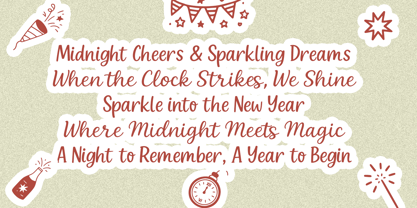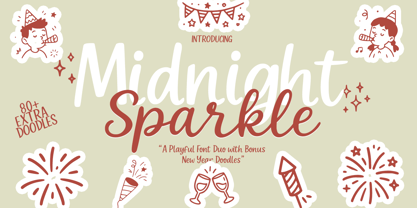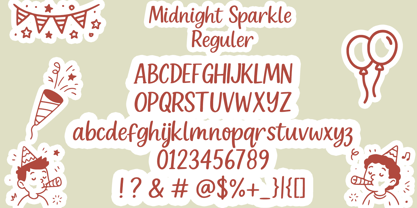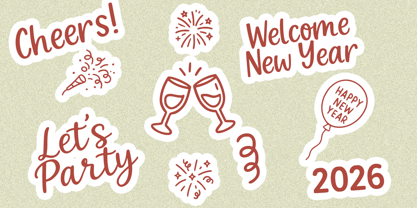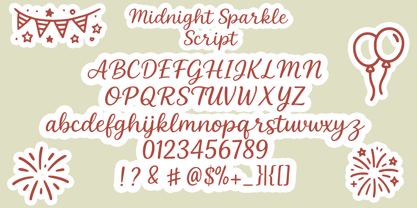
Midnight Sparkle
Die Schriftfamilie Midnight Sparkle wurde von Muhammad Zaini entworfen und von Cocodesign veröffentlicht. Midnight Sparkle enthält 3 Stile und Familienpaketoptionen. Mehr über diese Familie
Midnight Sparkle – Festive Font Duo + Extra New Year Doodles Midnight Sparkle is a playful and festive font duo designed to bring joyful New Year celebrations to life. This typeface set combines a bold, friendly display font with a smooth handwritten script, creating a perfect balance for eye-catching headlines and charming accents. Paired with 80+ hand-drawn New Year doodles, Midnight Sparkle offers a complete creative toolkit for seasonal designs. The doodles include festive elements such as fireworks, party icons, confetti, banners, and celebration details that add extra sparkle to any project. This font duo is ideal for New Year posters, greeting cards, stickers, social media graphics, invitations, packaging, and festive branding projects. ✨ Features Festive font duo: Display Font + Script Font Playful, friendly, and easy-to-read letterforms Perfect combination for titles and decorative text Includes 80+ bonus New Year doodles Hand-drawn illustration style Works well for both digital and print designs